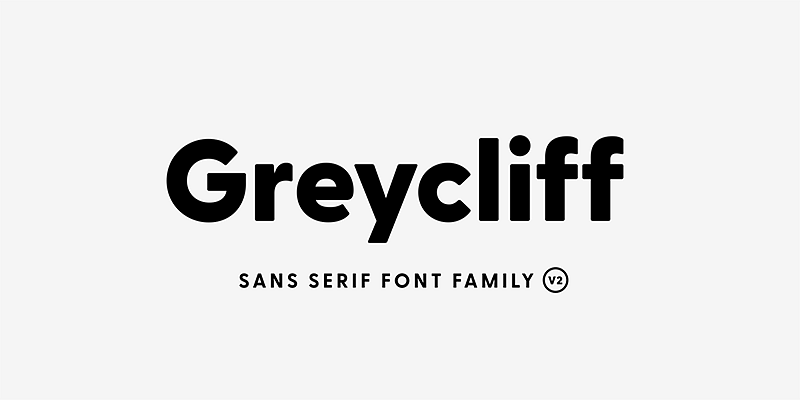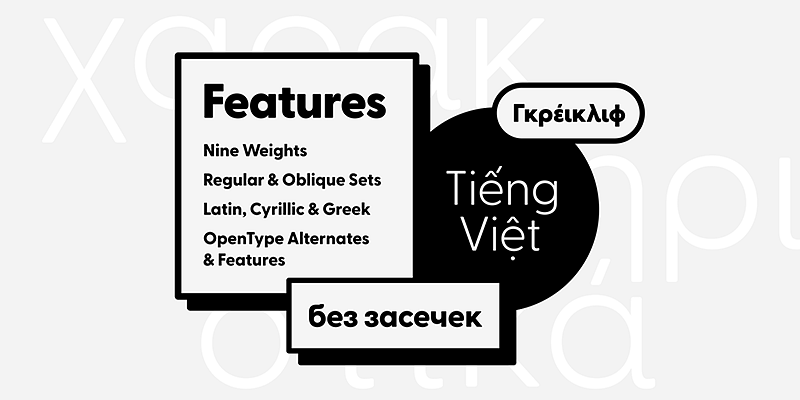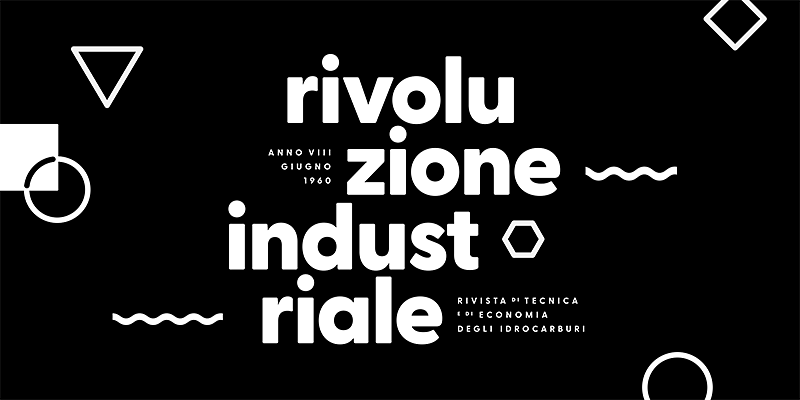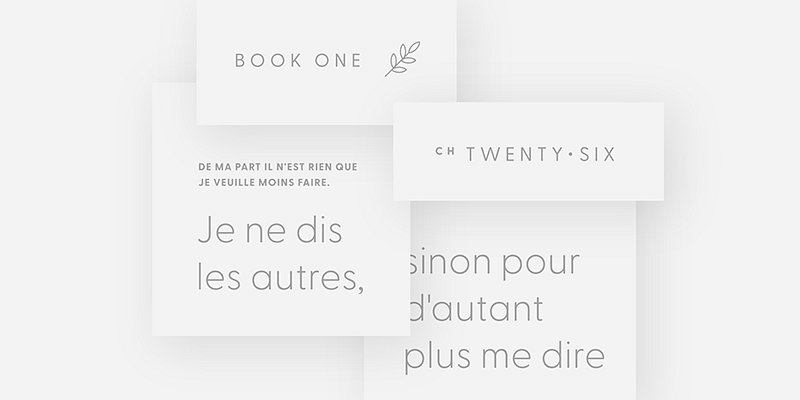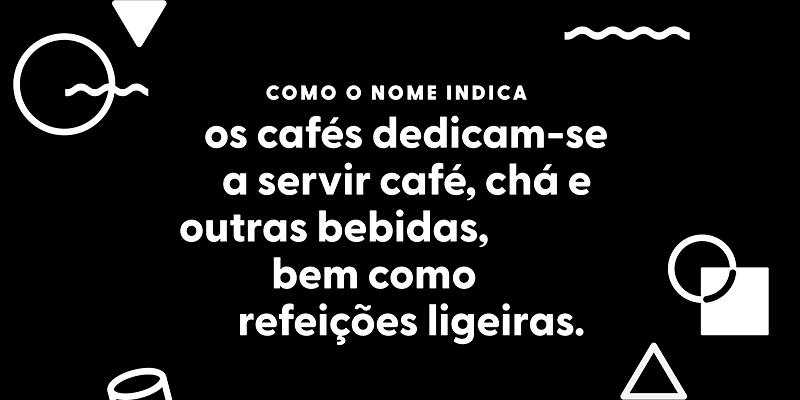
Rugged, hearty, and warm, Greycliff CF is a versatile font family. Strong capitals and a smooth, open lowercase are effective in a variety of applications. The geometric, near-monoline construction lends Greycliff a classic durability reminiscent of the 1940s, tempered by softened edges and vibrant shapes.